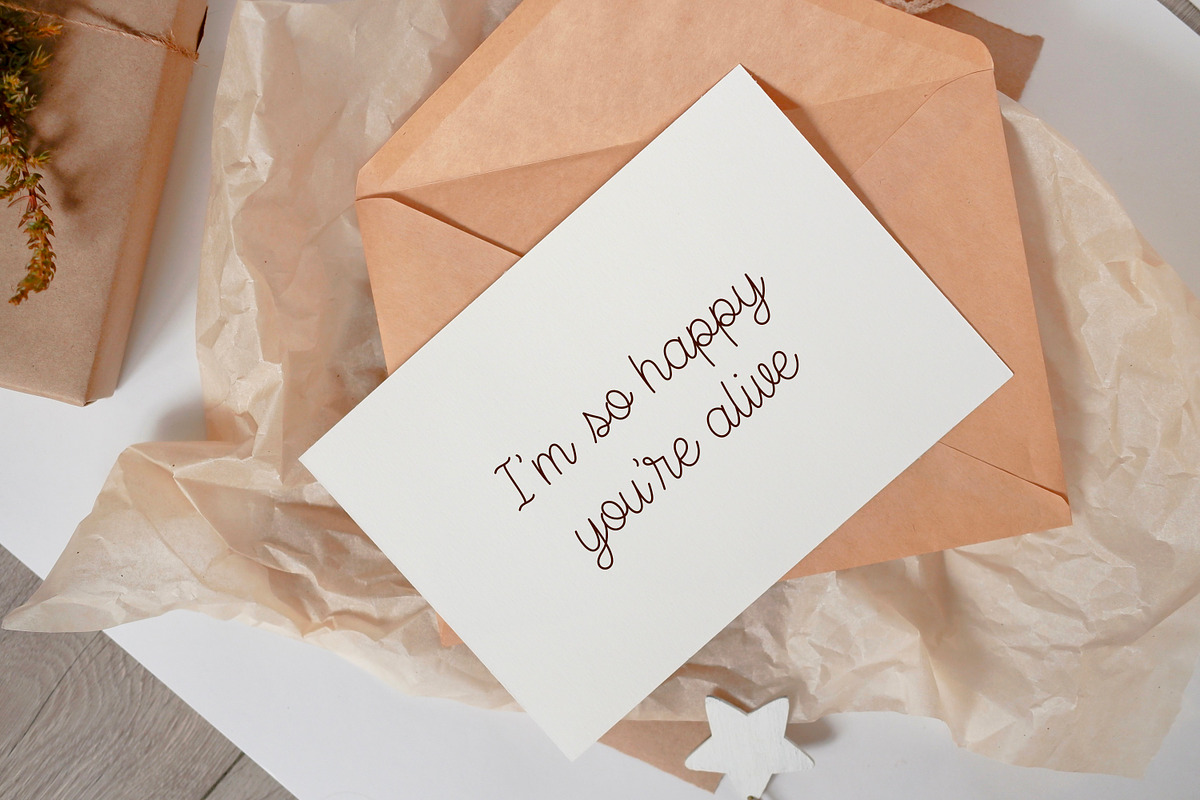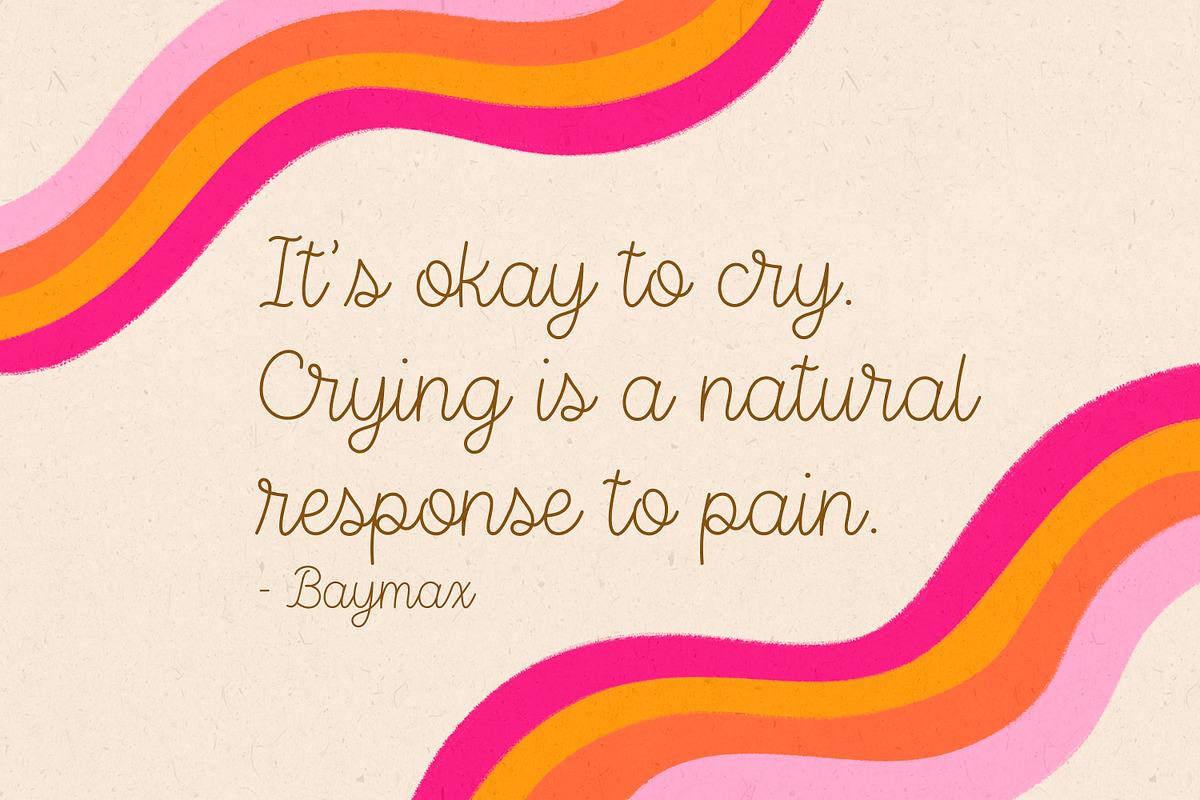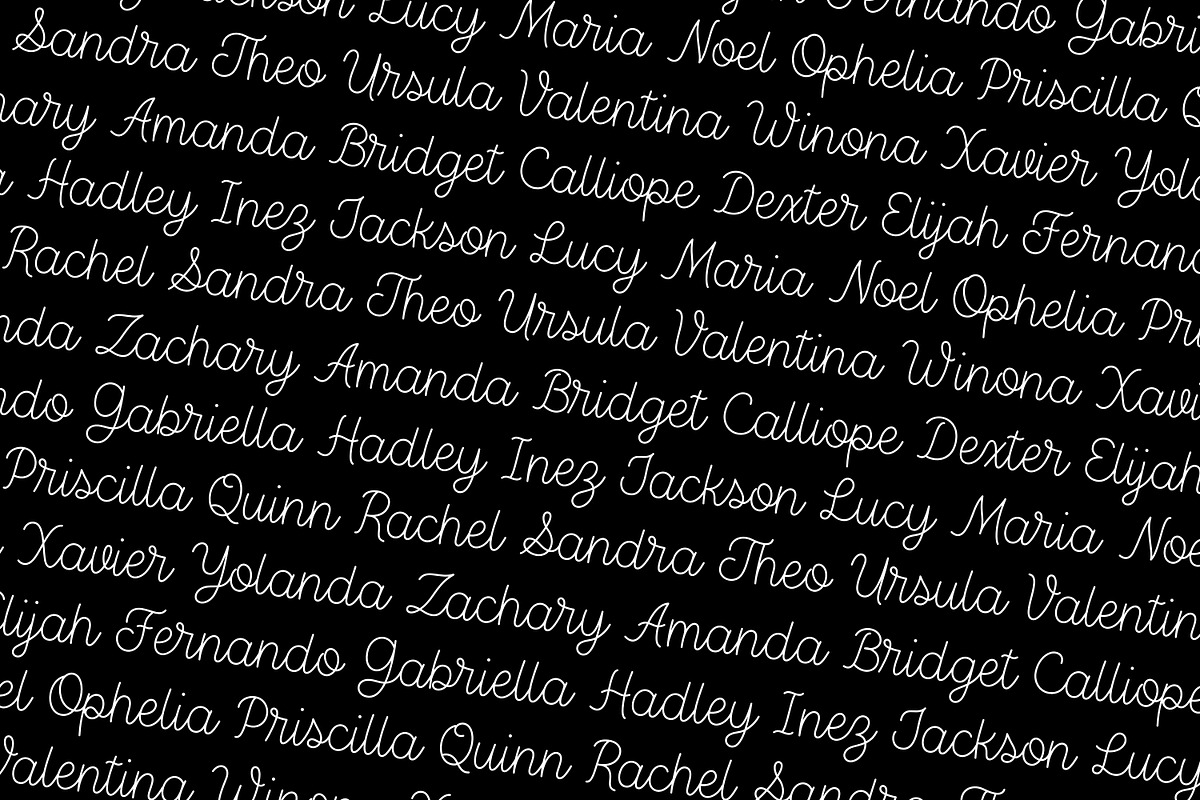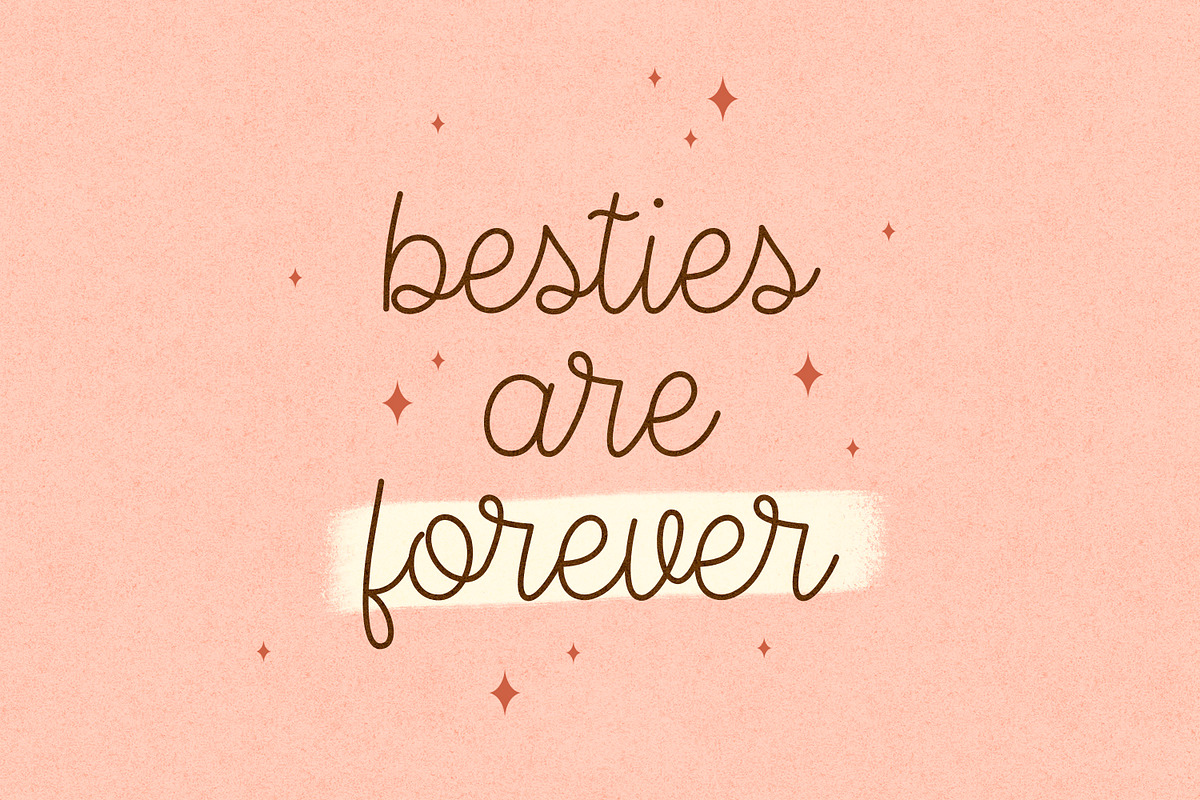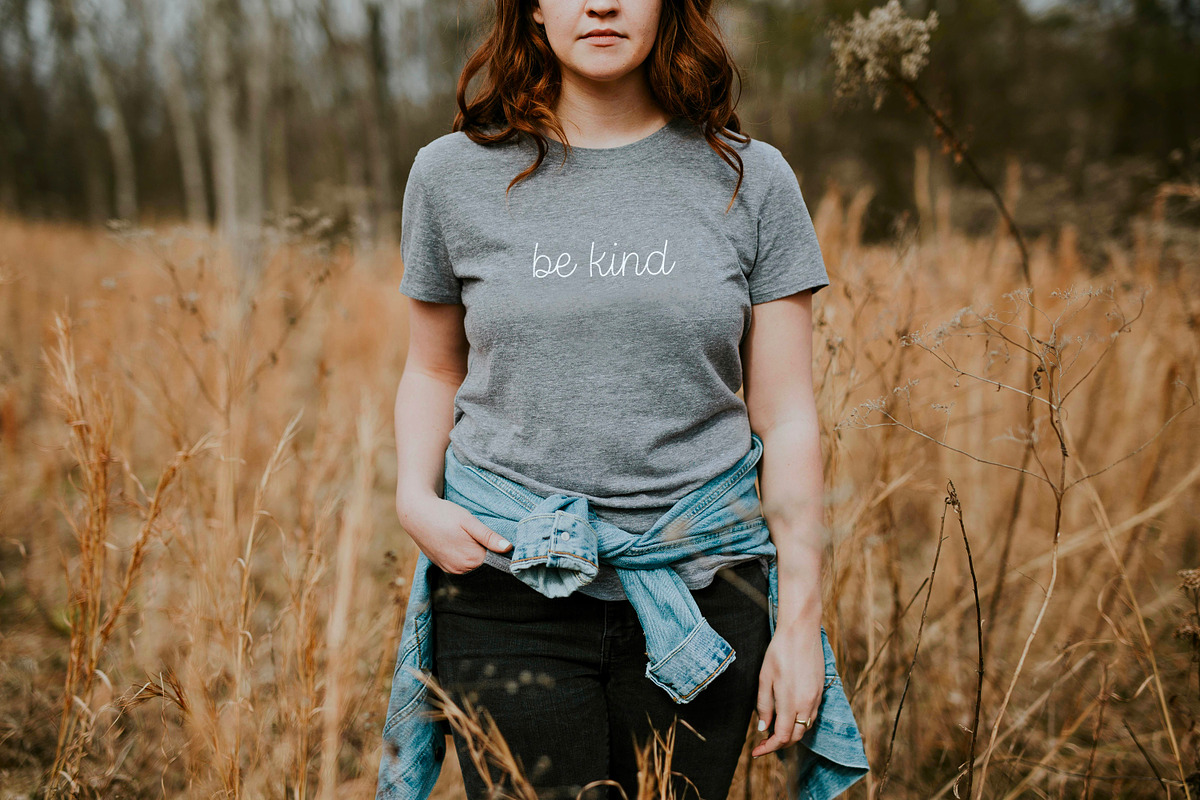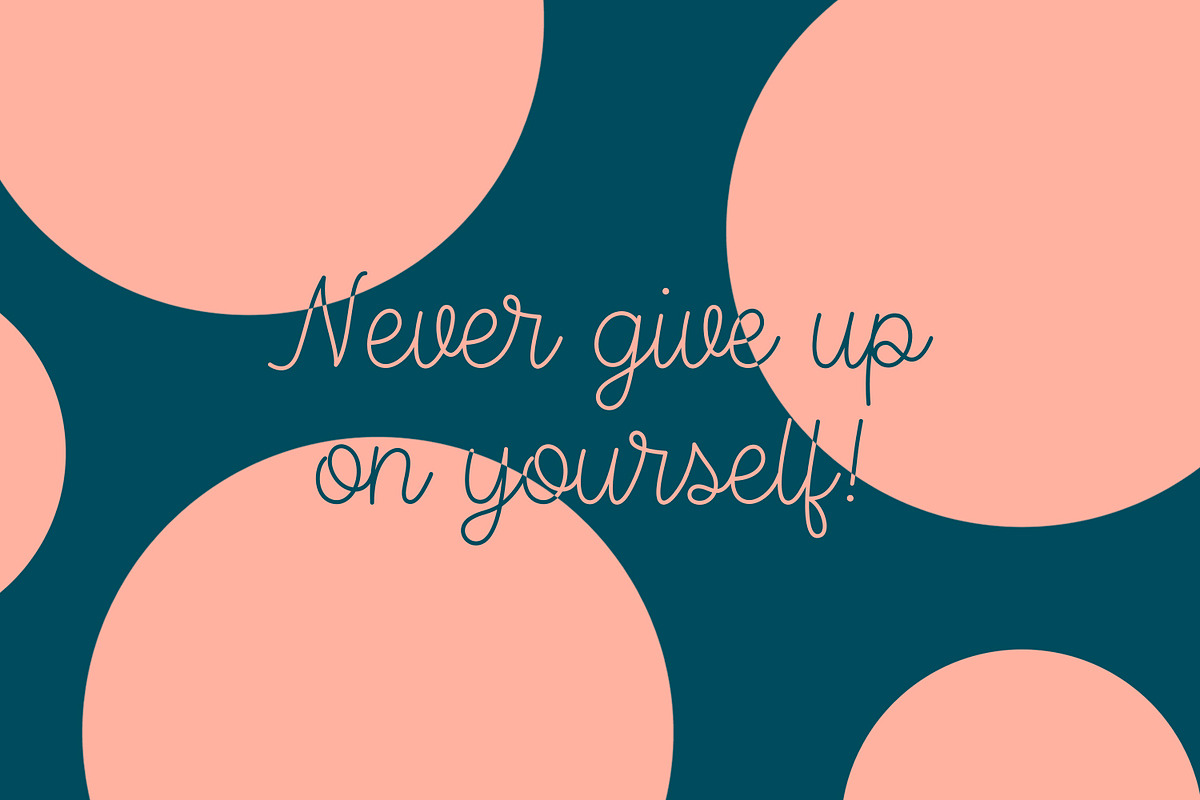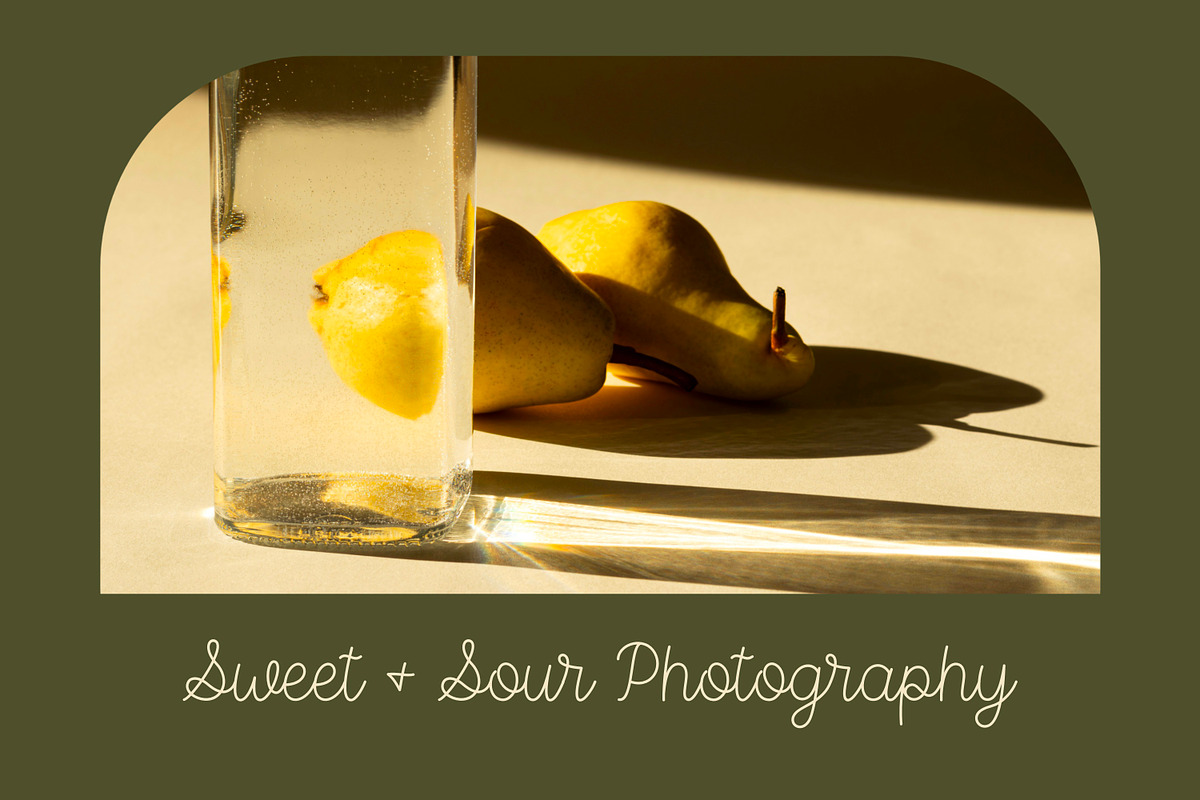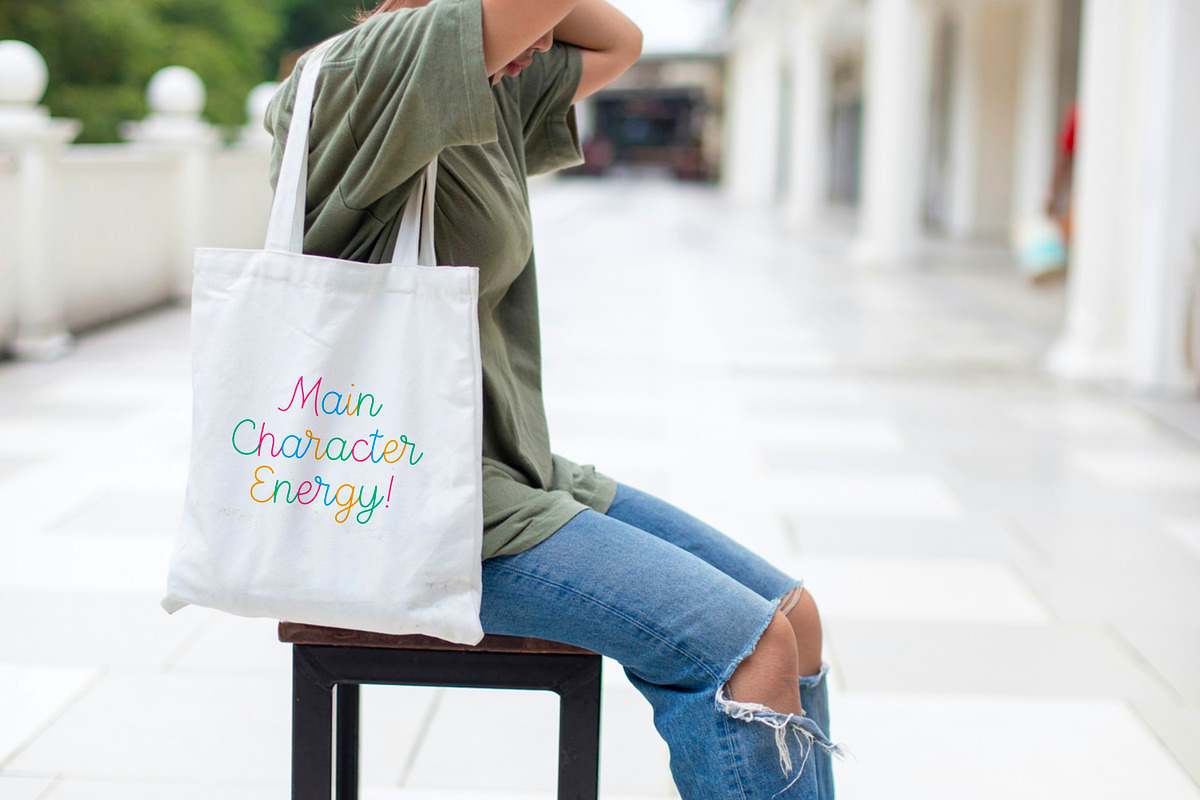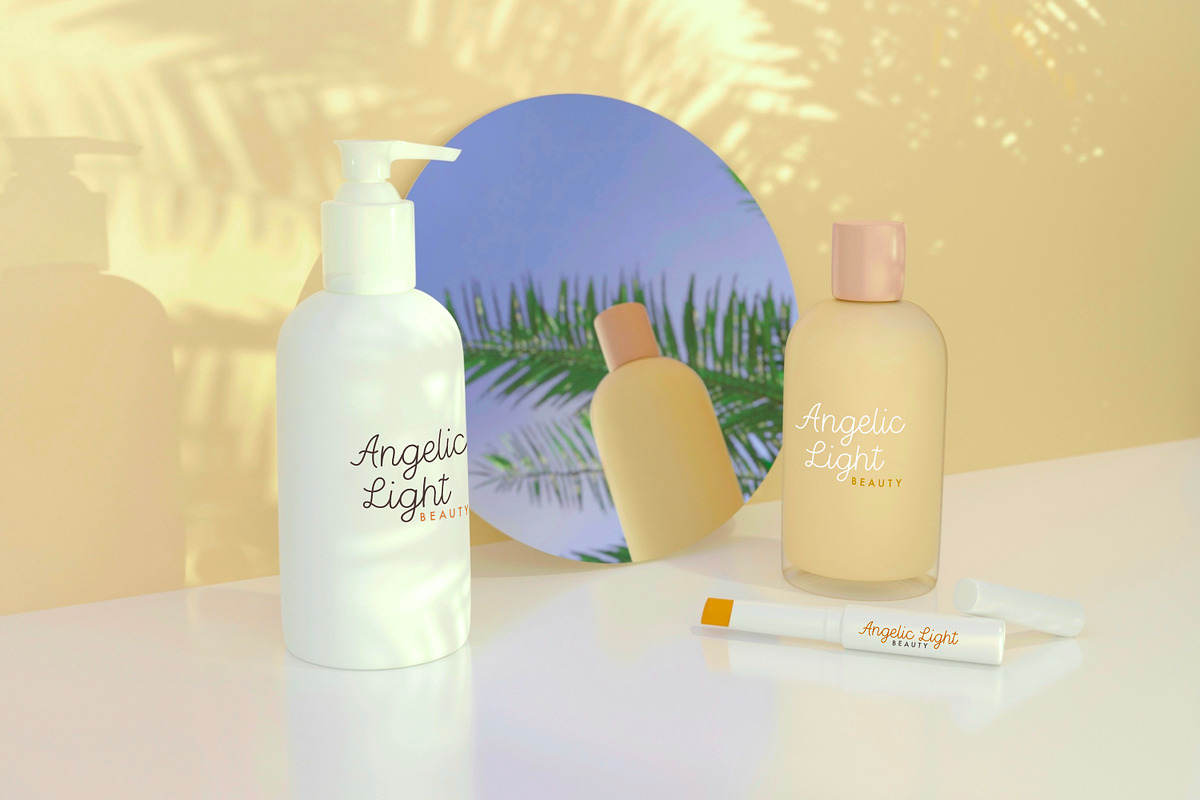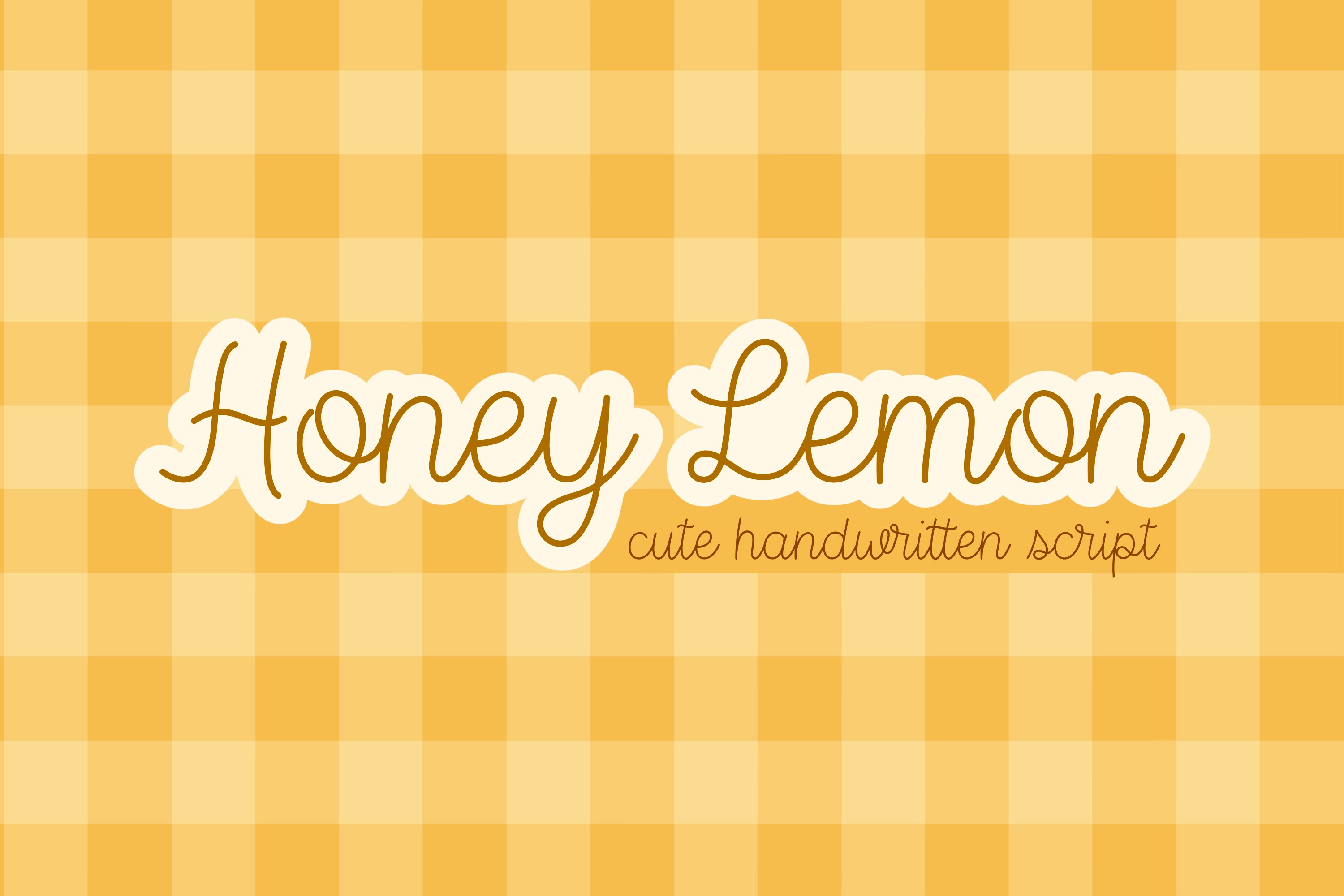
Honey Lemon Cute Font
Introducing the cutest new font on the block: Honey Lemon! This beautiful monoline script will add a playful yet elevated touch to any design! It is perfect for any and all logos, branding, invitations, stickers, t-shirts, posters, and much more!